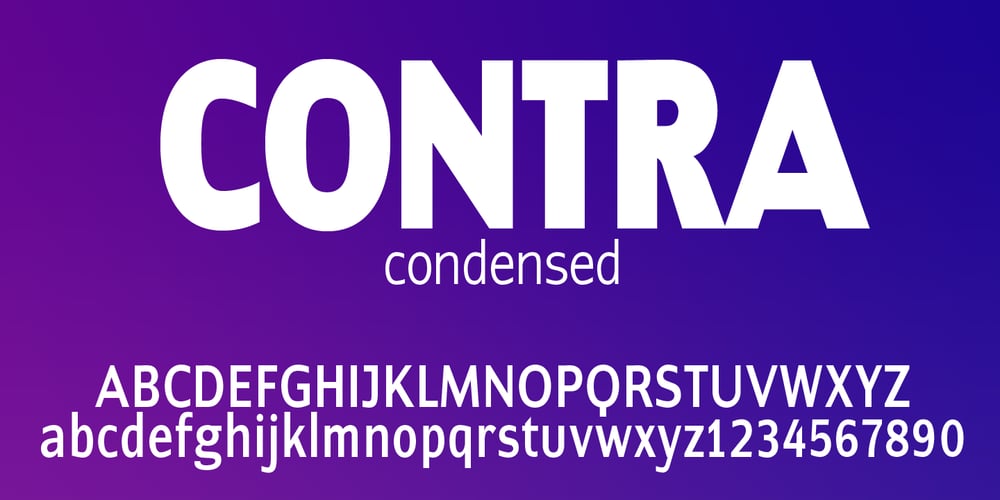
Contra Condensed Font Family was designed by Gert Wiescher and published by Wiescher Design. Contra Condensed contains 10 styles and family package options. Contra Condensed is the condensed version of my Contra family of fonts. It is very condensed, but not yet narrow. It is well suited in all situations were one needs to save space. Enjoy!